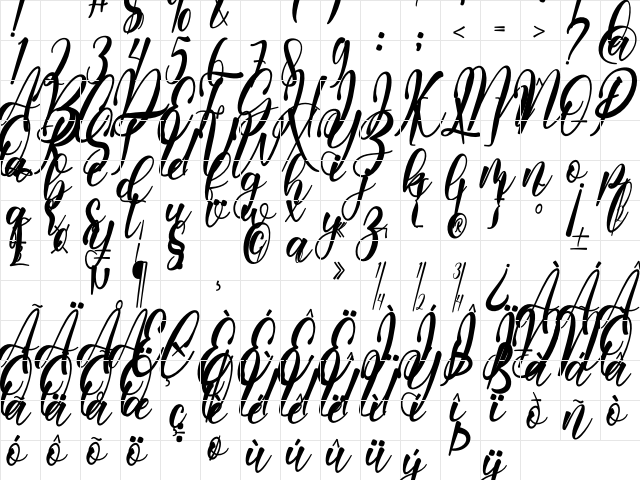
Melyana Regular
| Designer | Donis Miftahudin |
Design Context for Melyana Typeface
Melyana is a composed and adaptable typeface that performs quietly and consistently across a wide range of design contexts.